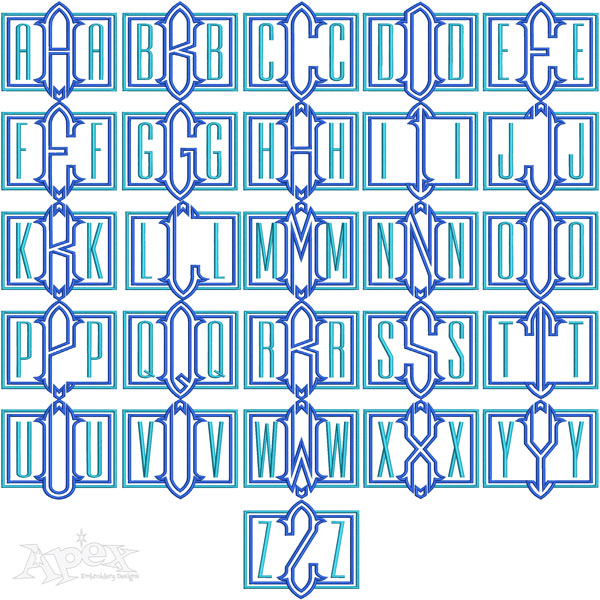
Square Monogram Embroidery Fonts
Square Shape Machine Monogram Machine Embroidery Font. Custom 3-Letter Personalized Alphabet Lettering Pattern Multicolor Two 2-Color Files Small & Large Sizes